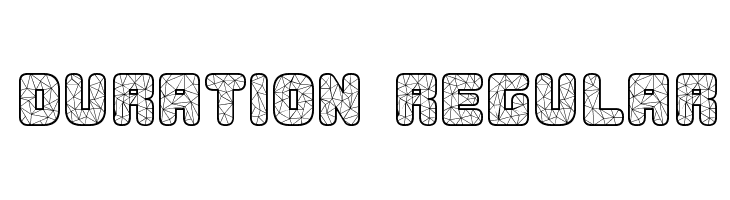
( Vlad Viperov )
A playful, chain-like decorative font with interconnected circular patterns.
( Vladimir Nikolic - www.coroflot.com/vladimirnikolic )
A geometric, wireframe-style font with bold outlines and intricate triangular patterns.
( Vladimir Nikolic - www.coroflot.com/vladimirnikolic )
A bold, multi-line font with a modern, geometric style.
( Vladimir Nikolic - www.coroflot.com/vladimirnikolic )
A modern, geometric font with concentric line patterns for a bold visual impact.
( Vladimir Nikolic - www.coroflot.com/vladimirnikolic )
A bold, geometric font with parallel lines creating a modern, dimensional look.
( Woodcutter - woodcutter Manero - www.woodcutter.es )
A display font made from stylized robotic arm illustrations.
( Xerographer Fonts - Max Infeld - xerographer.blogspot.com )
A geometric and angular font with a futuristic and abstract design.
( Xerographer Fonts - Max Infeld - xerographer.blogspot.com )
A bold, futuristic font with geometric shapes and a dynamic design.
( coletivo NEGOBOM - Felipe Caroé - www.coletivonegobom.com )
Energetic display font made from parkour silhouettes.
( dondon nillo - Dondon Nillo - www.creativefabrica.com/designer/dondon_nillo/ )
A decorative, multi-line font with a geometric and modern style.